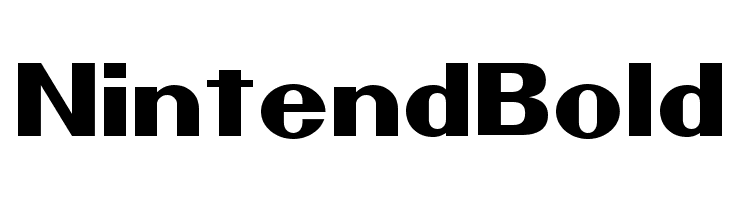
( Lyric Type - www.deviantart.com/westralinc )
A bold, modern sans-serif typeface with strong, clean lines.
( Marc Clancy - www.marcclancy.com/ )
A bold, modern font with a futuristic and cohesive design.
( Matias Romero - matiasromero.deviantart.com )
A modern, geometric sans-serif font with clean lines and uniform strokes.
( MaxMido - www.behance.net/maxmido )
A modern, minimalist font with clean lines and geometric shapes.
( Nght's Place - www.crosswinds.net/~nghtmvs/font/fonts1.html )
A decorative font with characters embedded in grand piano silhouettes, ideal for music-themed designs.
( Pixel Sagas - www.pixelsagas.com )
A bold, geometric font with a futuristic and modern design.
A bold, geometric font with a modern and streamlined design.